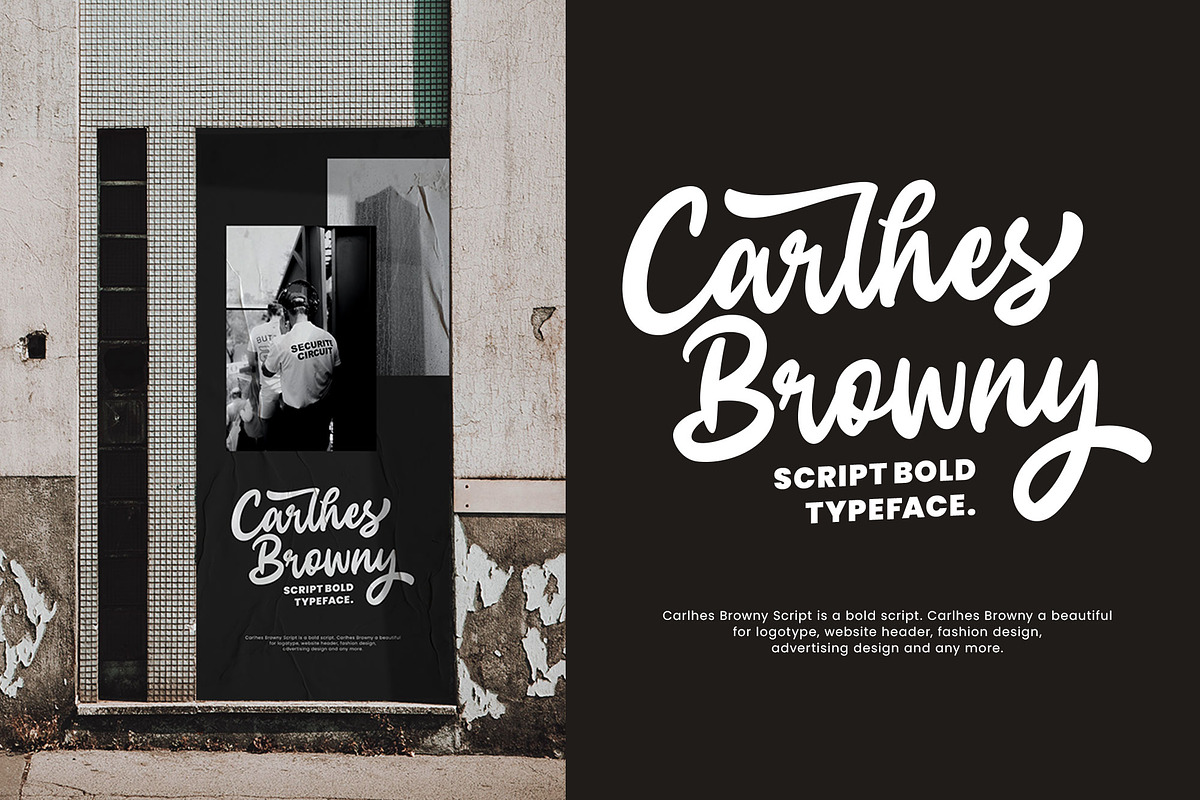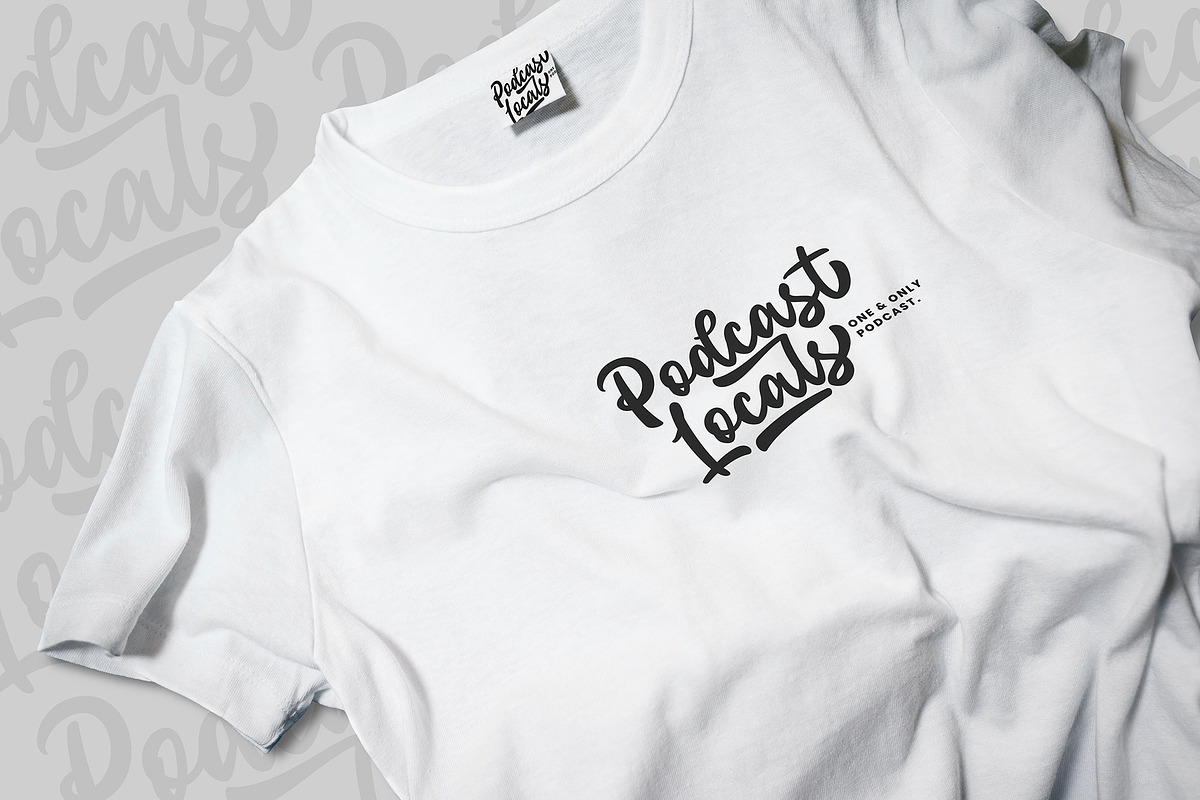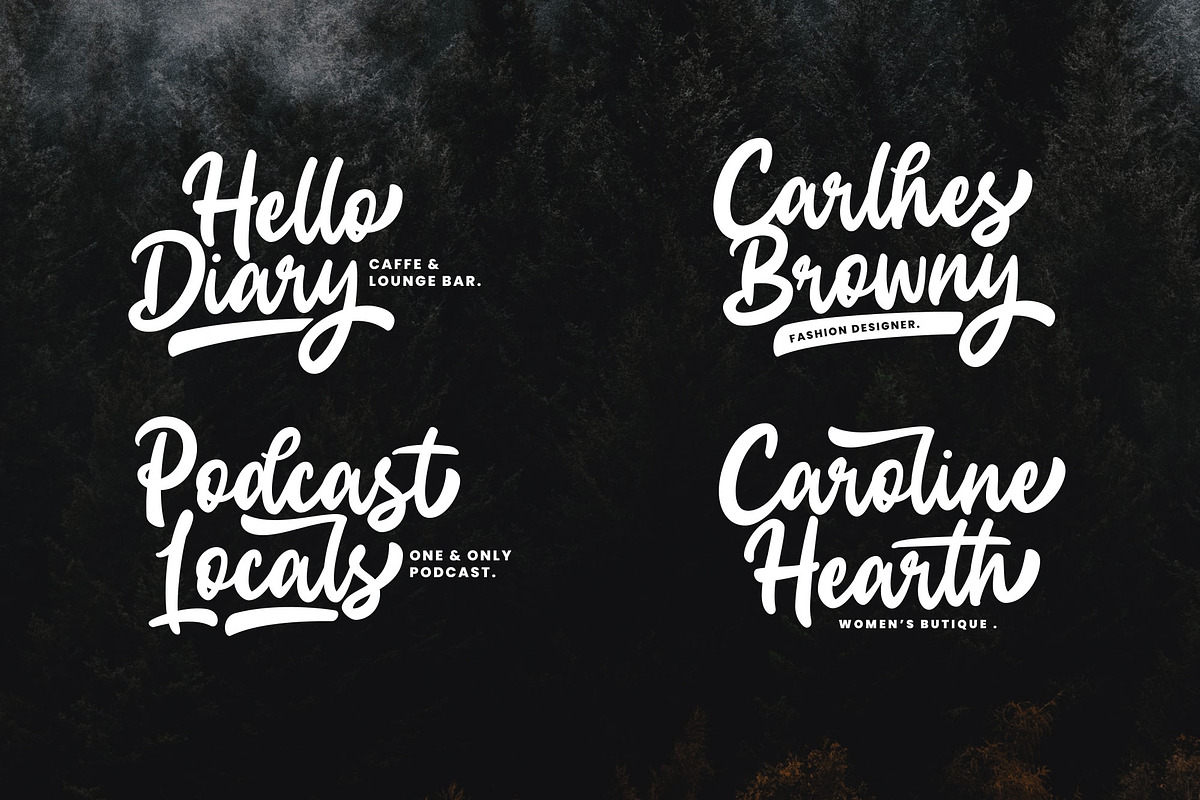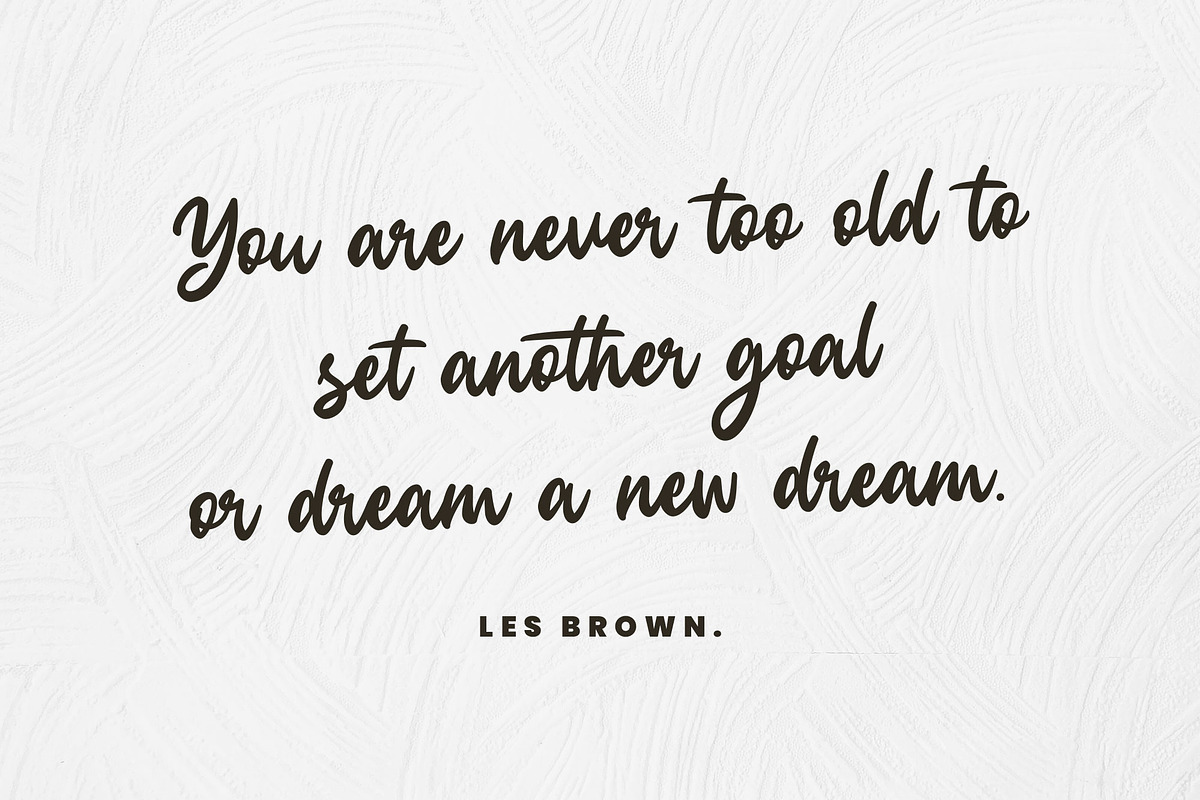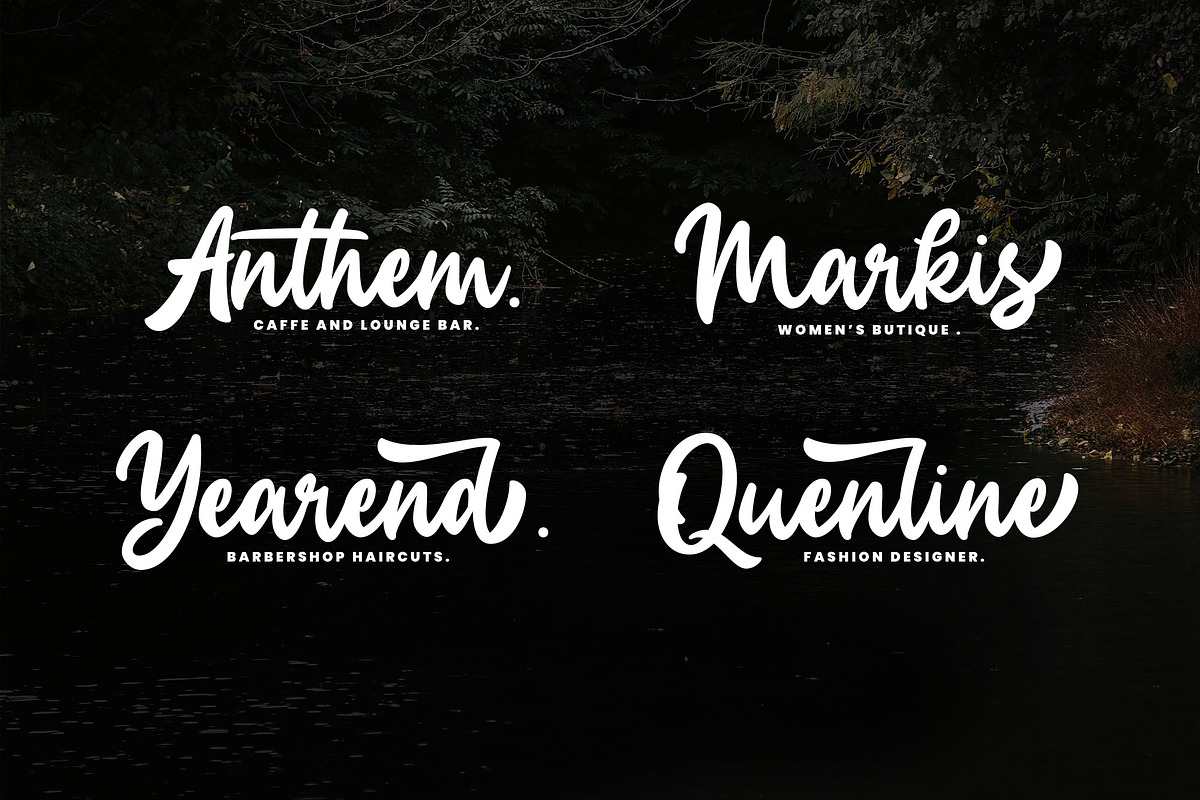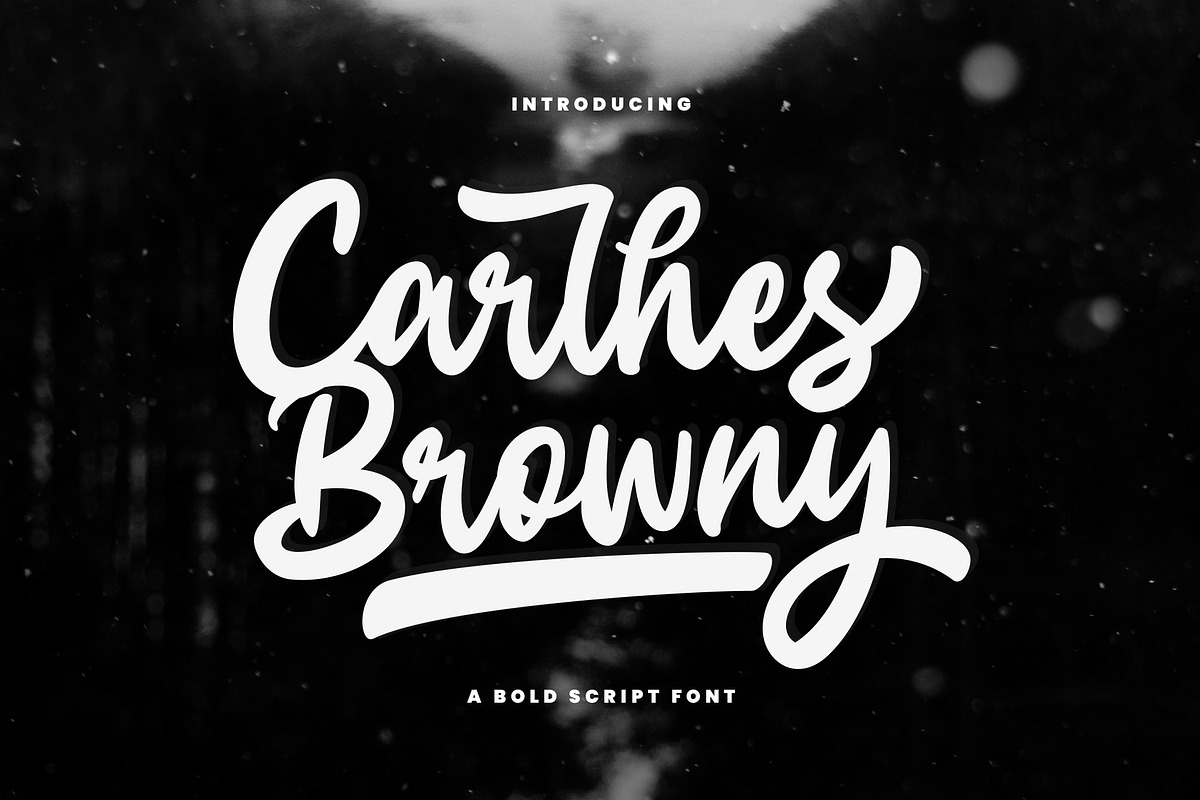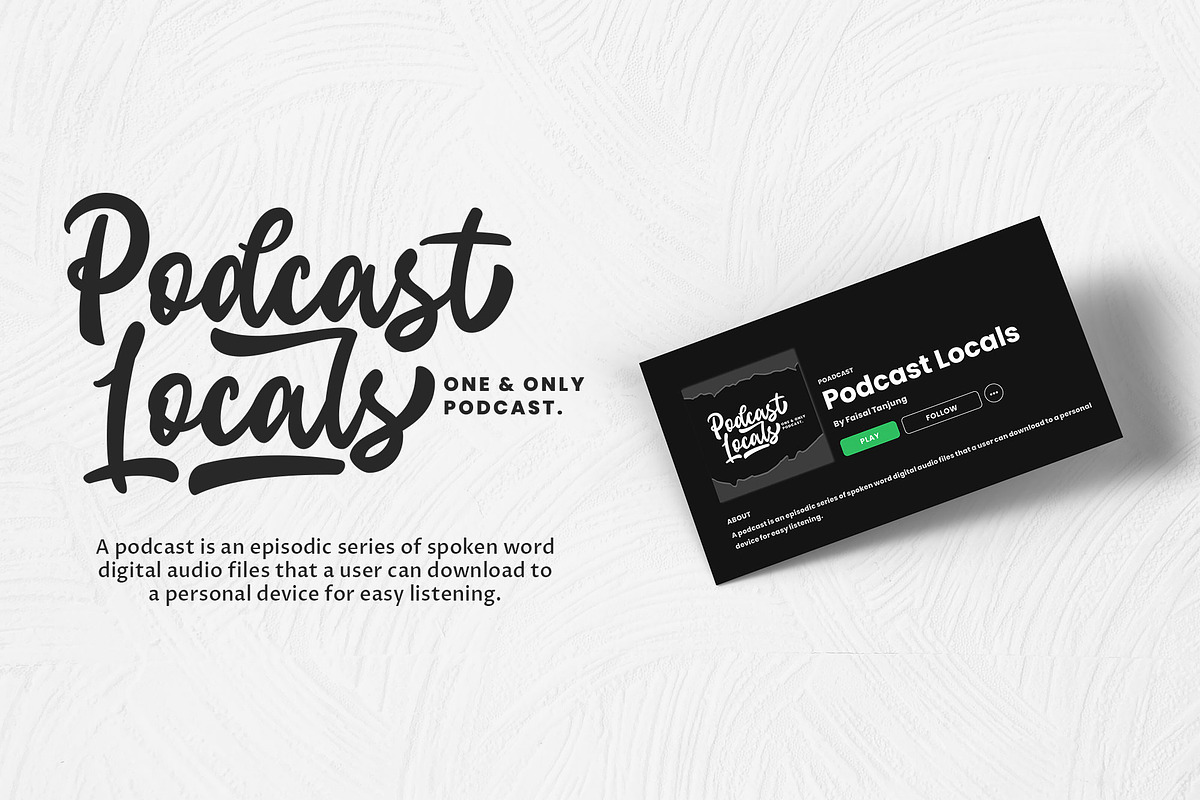
Carlhes Browny
Carlhes Browny is a bold script. Carlhes Browny a beautiful for logotype, website header, fashion design, advertising design and any more. It contains a full set of lower & uppercase letters, a large range of punctuation, numerals, and multilingual support.